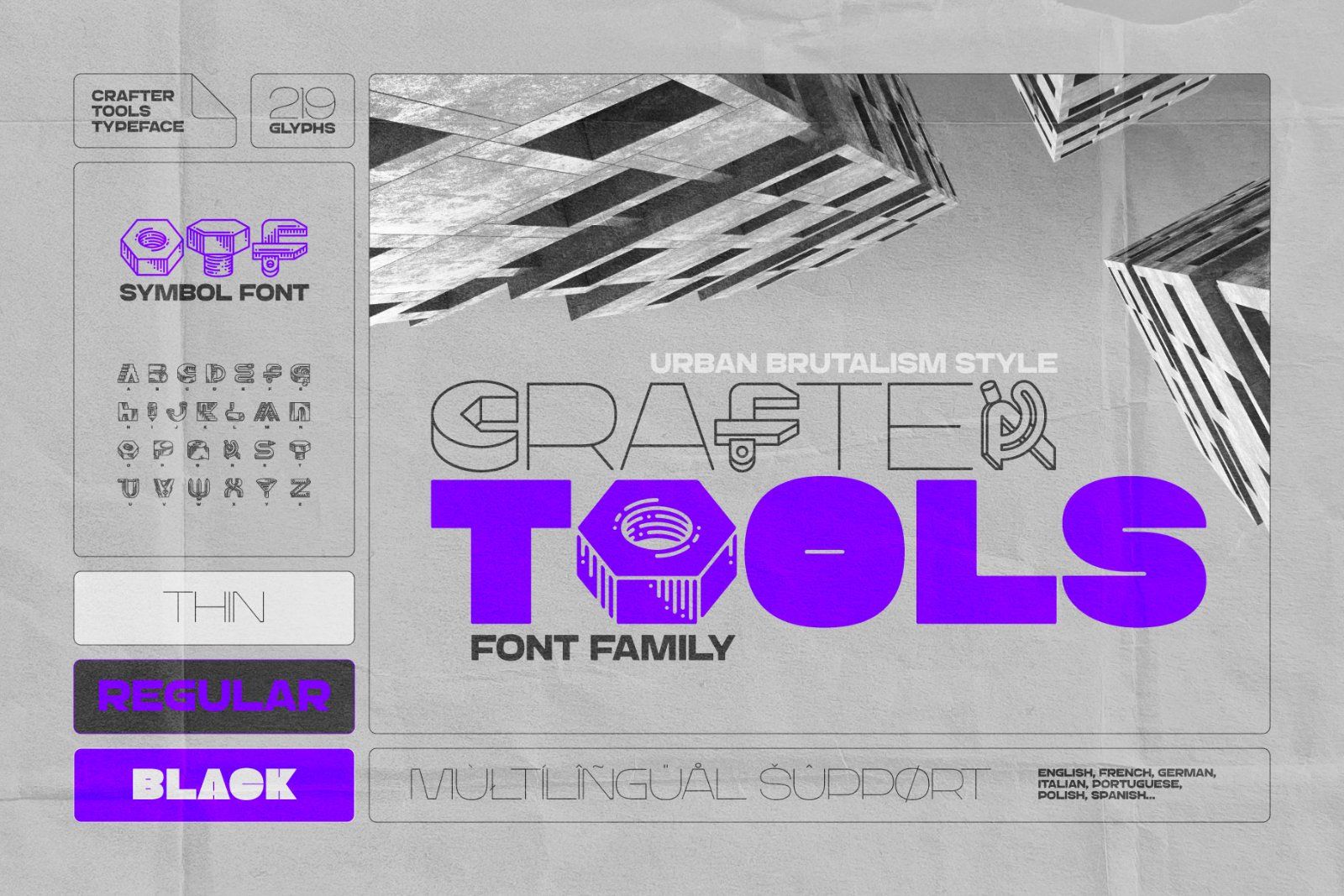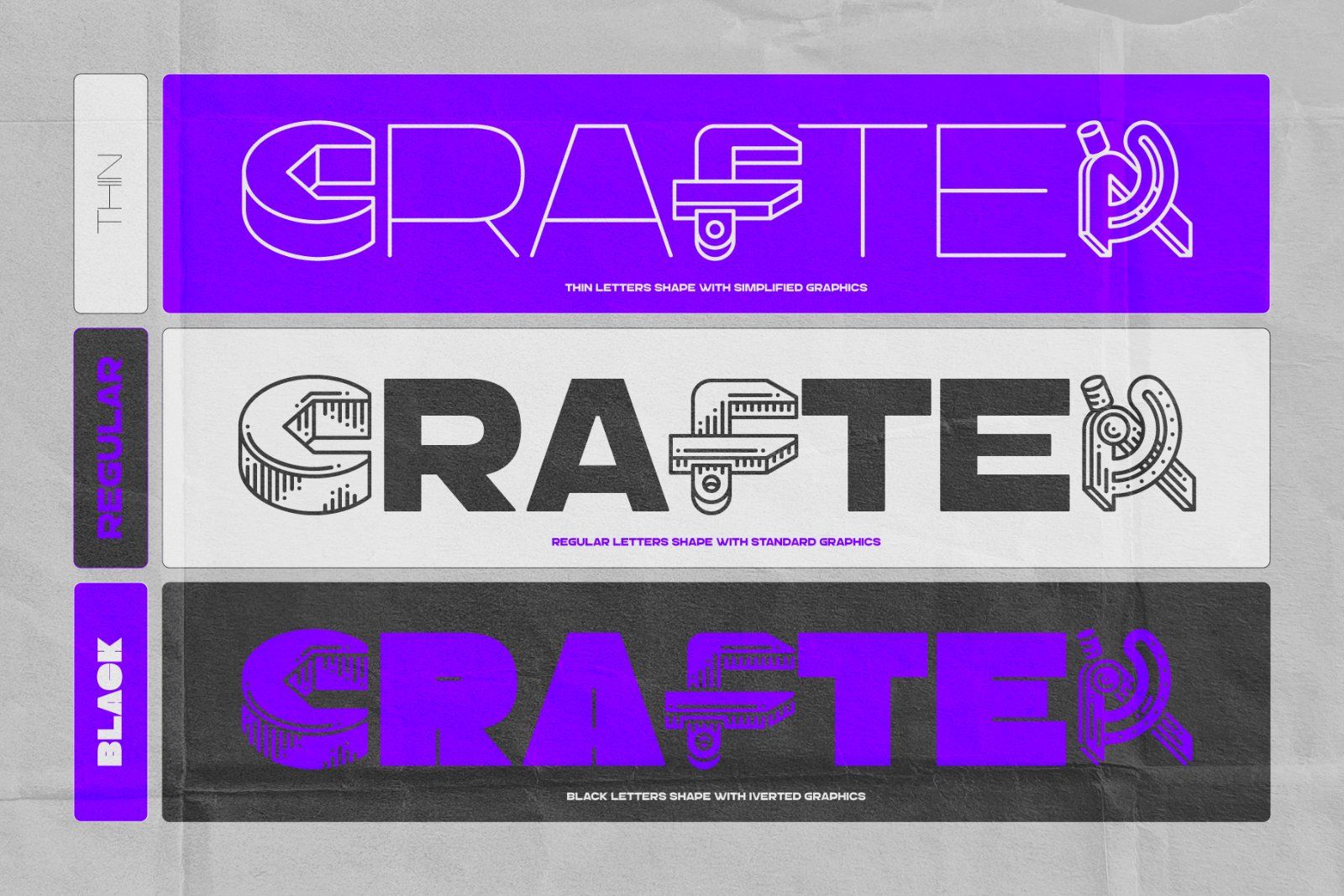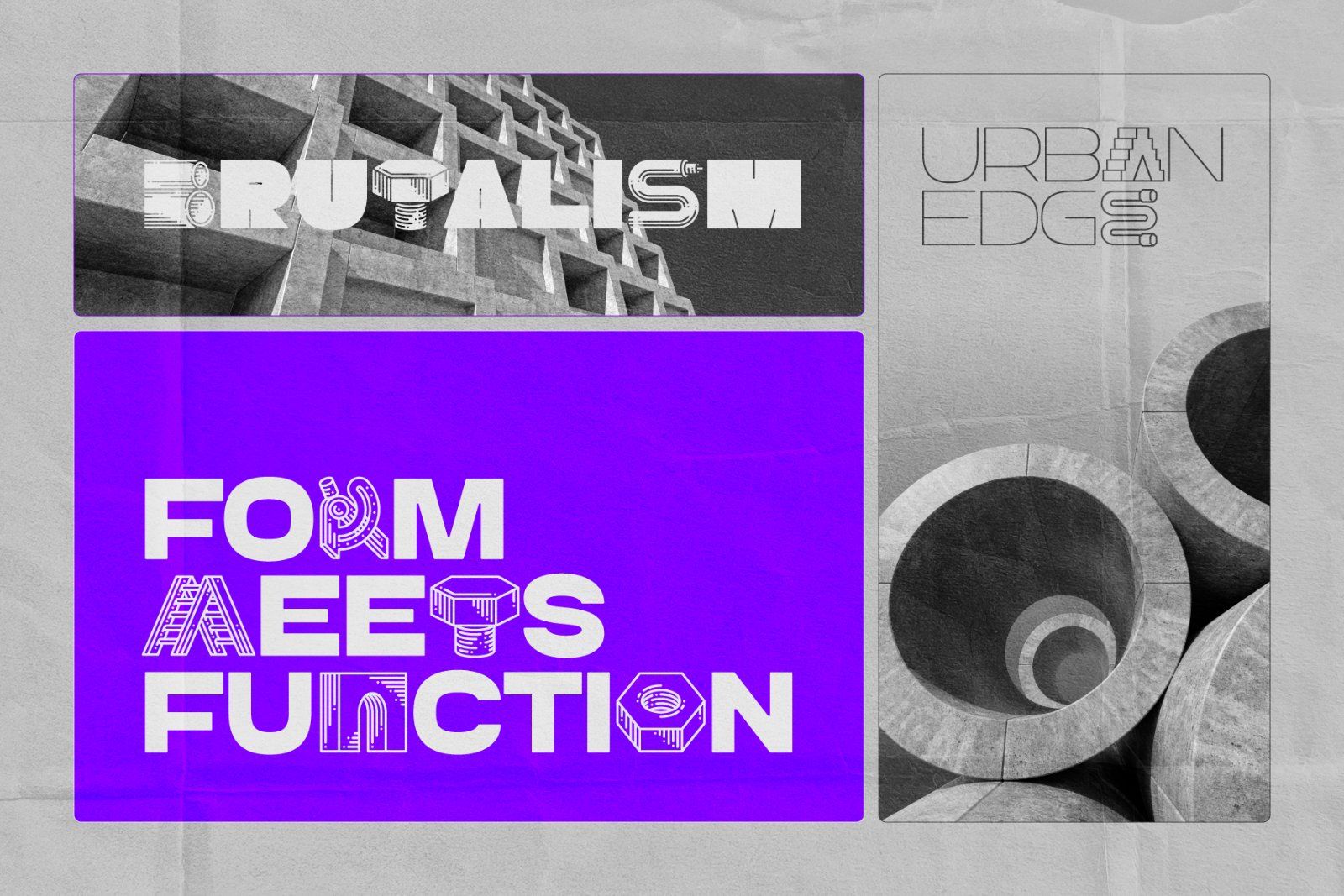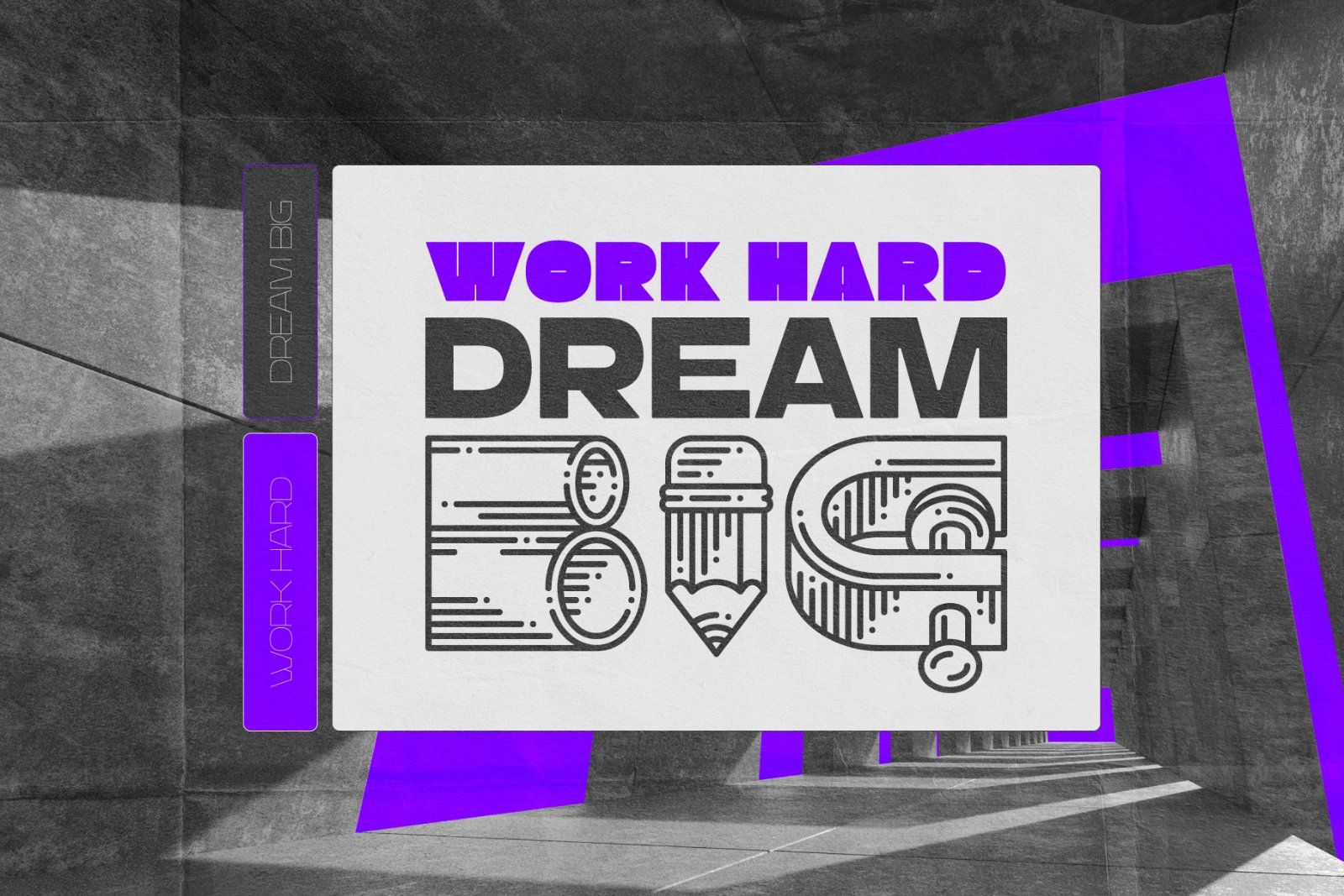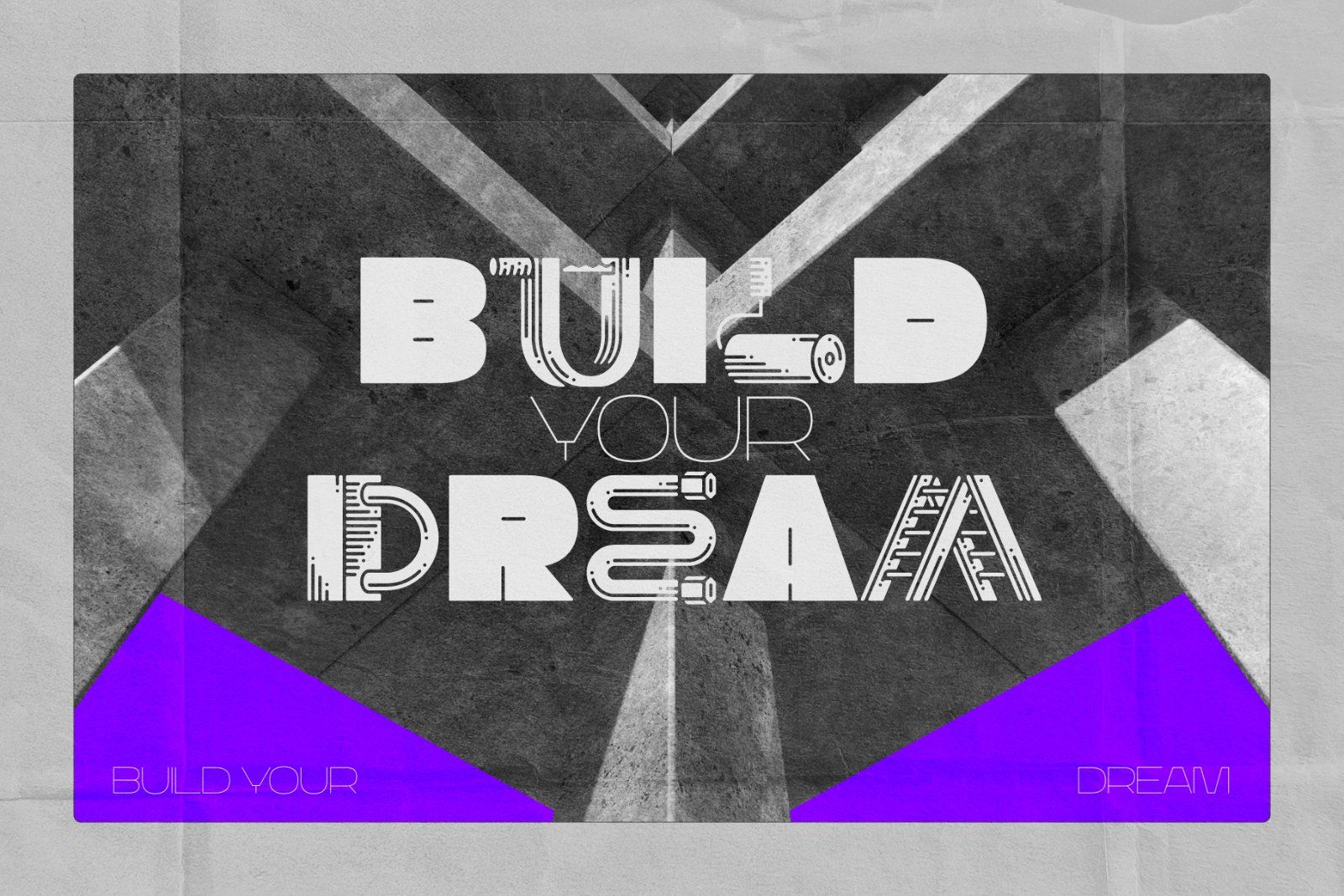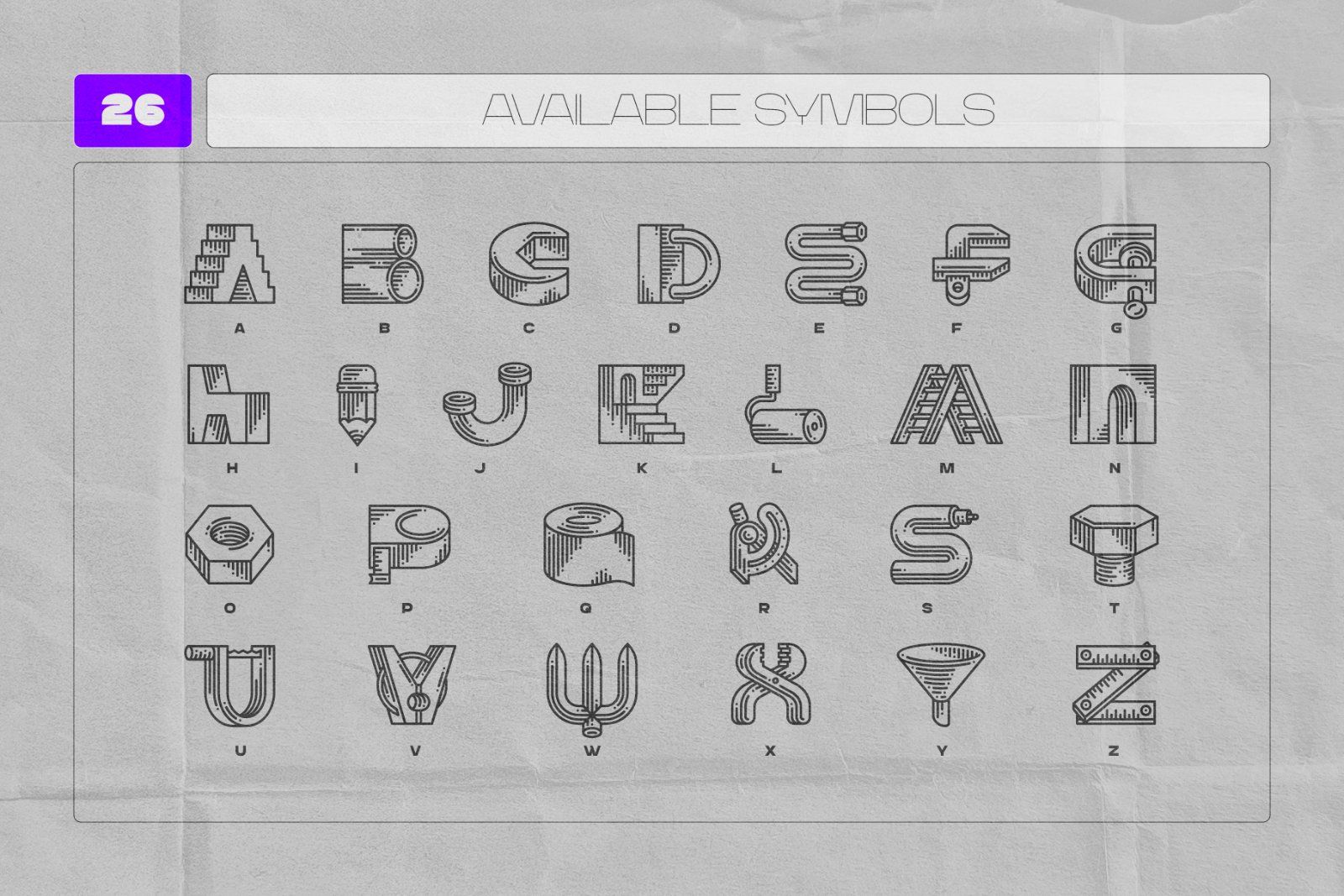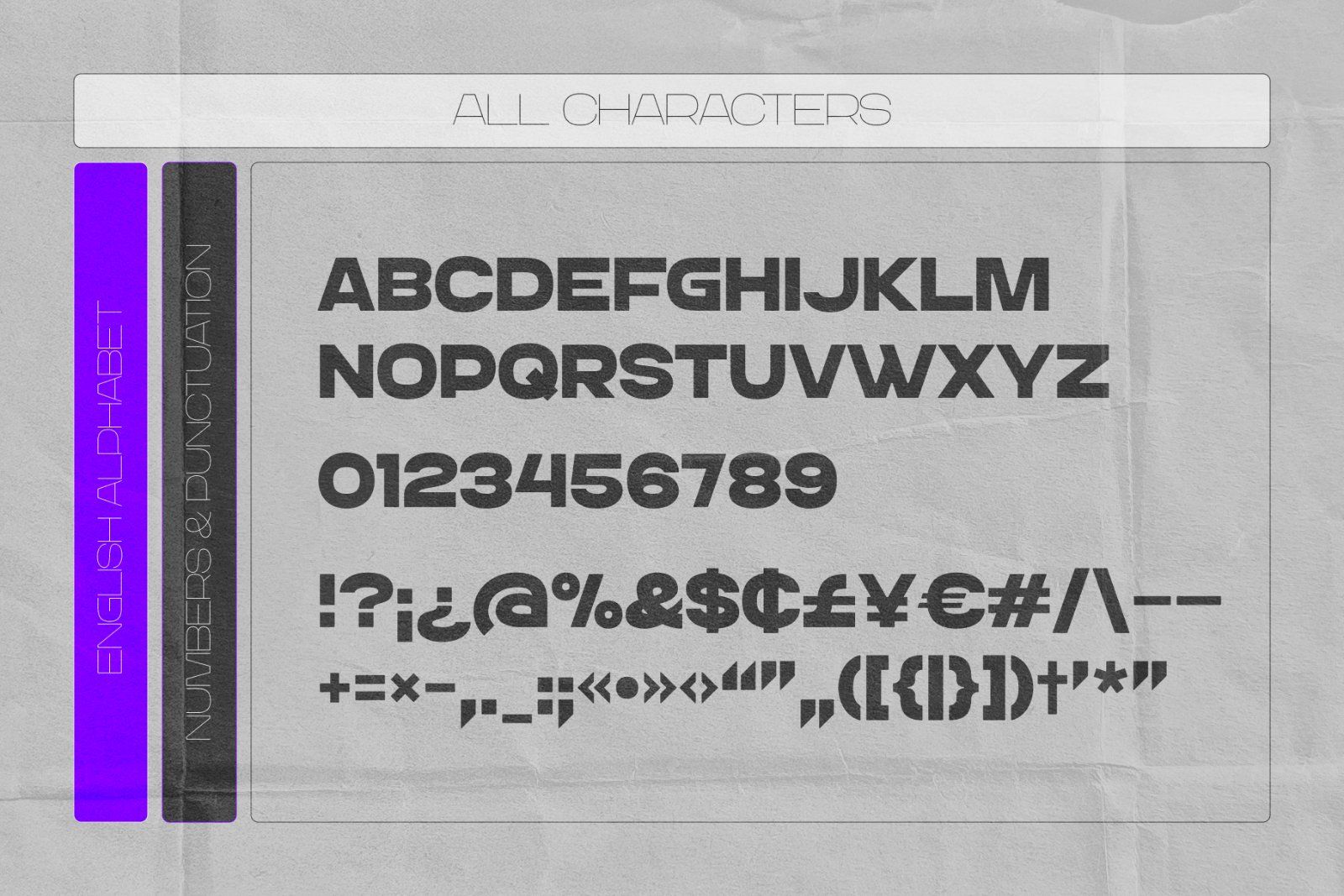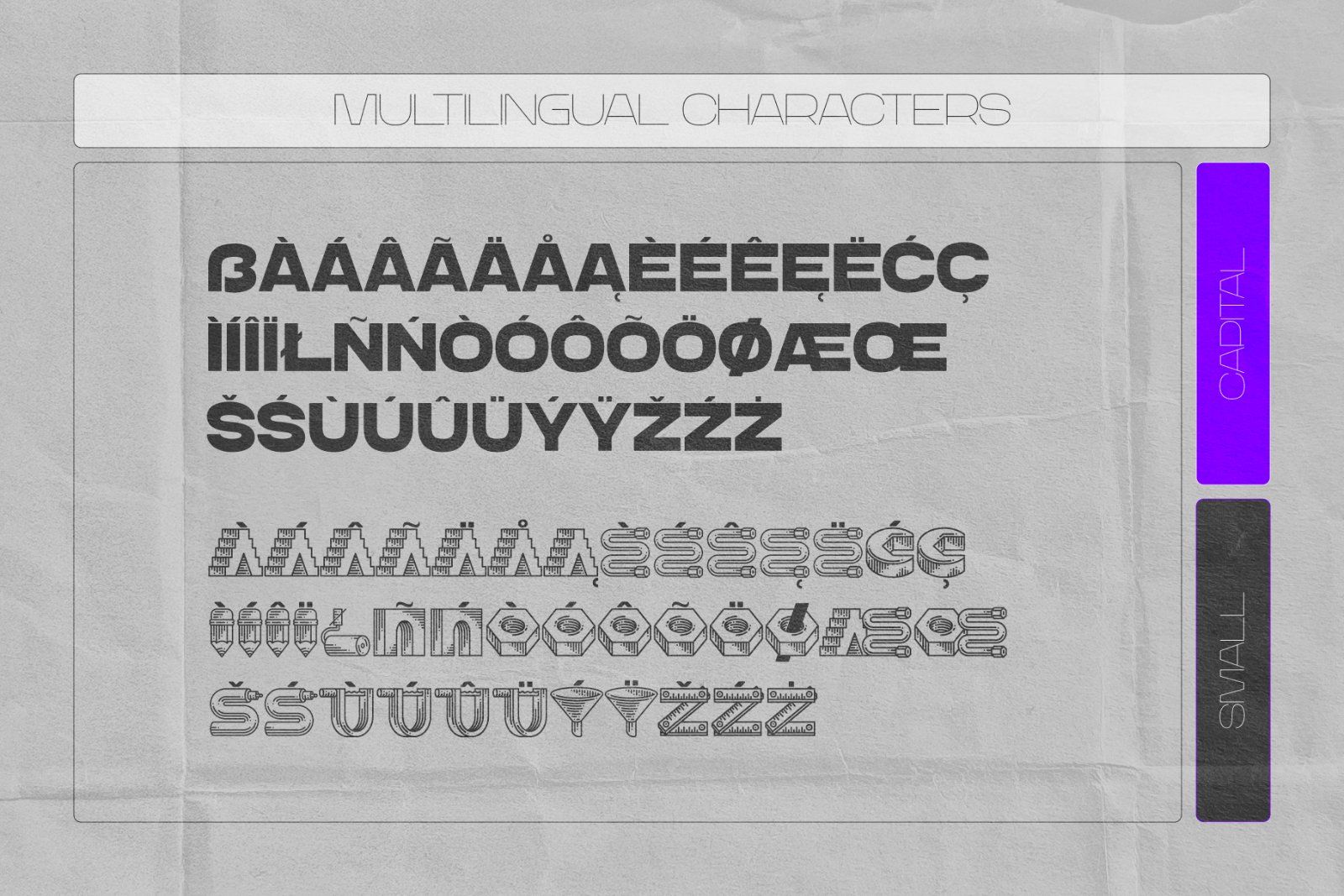
Introducing an original font set named Crafter Tools. This font features symbol-like letters related to a builder theme, representing various industrial instruments, urban structures, and objects. And since it's a font, each symbol is designed in the shape of a specific letter.
Crafter Tools font family set includes 3 typefaces with different weights — Thin, Regular and Black. This font has multilingual support, check out a screenshot with available characters.